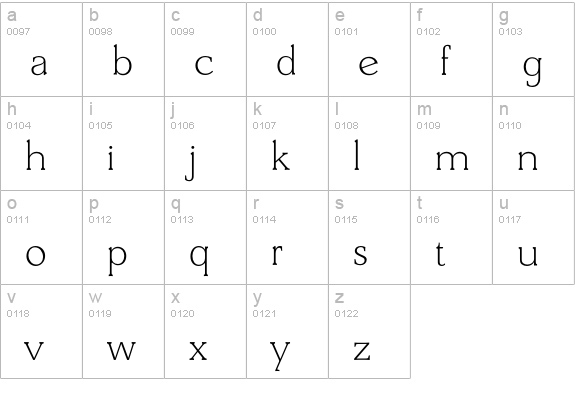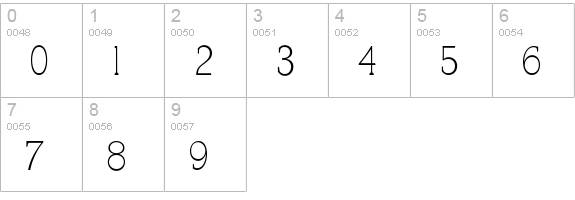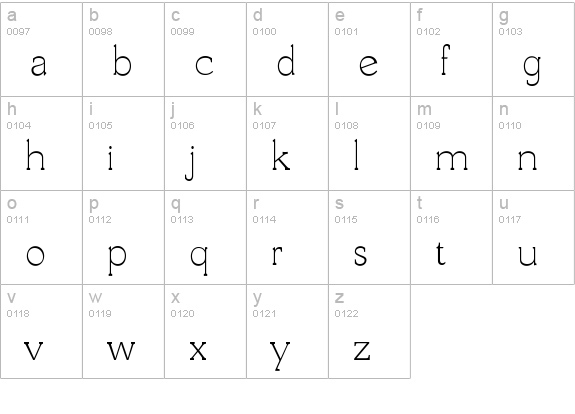
Derringer-Xlight font is a sleek and modern typeface that exudes elegance and sophistication. Its delicate strokes and minimalistic design make it perfect for a wide range of design projects, from branding to editorial layouts. The Derringer-Xlight font offers a sense of refinement and style that will elevate any design it is used in. What makes Derringer-Xlight font even more appealing is that it is available for free download at FontsMarket.com. This means that you can easily access this beautiful font without having to worry about any additional costs. Whether you are a professional designer or just someone looking to add a touch of class to your projects, Derringer-Xlight font is a fantastic choice that is both high-quality and freely accessible. Download it today and see how it can enhance your creative endeavors!